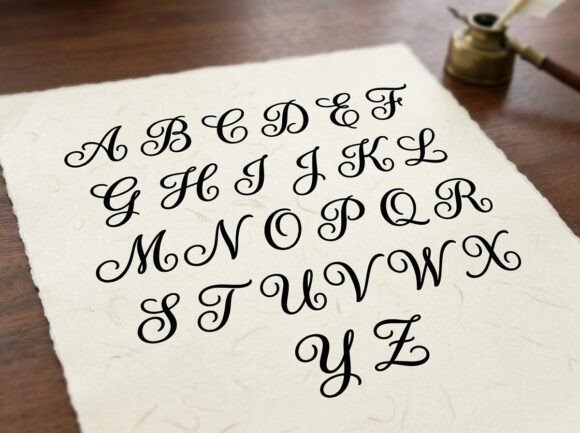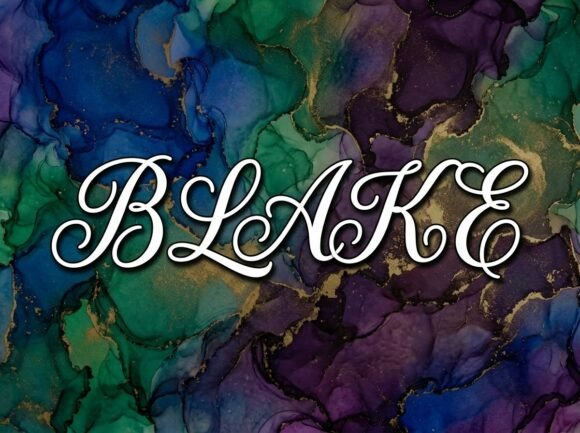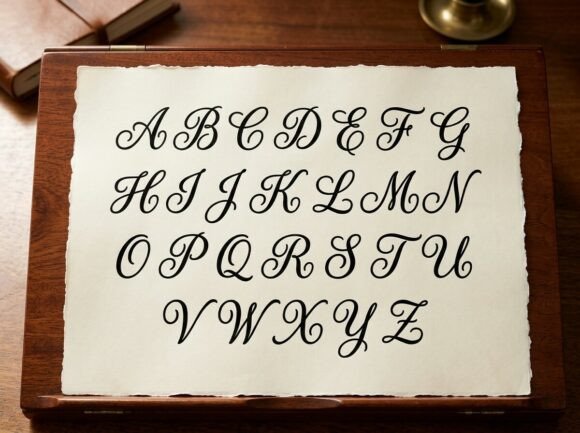
The Ultimate Guide to Blake Font: Elevate Your Designs with a Stunning Display Font
Have you ever been in the middle of a design project, and suddenly, you’re stuck on finding the perfect font? I recall a recent experience where I was working on a branding project for a luxury client, and I just couldn’t find a font that screamed elegance and sophistication. That’s when I stumbled upon the Blake Font, a game-changing decorative display font that instantly elevated my design.
An Honest Review of Blake Font
Let’s dive into the good stuff! Here’s what I love about Blake Font:
• ✨ Unique artistic elements that make your designs stand out
• ✅ Strong visual personality that’s perfect for bold headlines and artistic logos
• 💼 Versatile enough for creative packaging, while maintaining a professional finish
Now, let’s talk about a few quirks:
• ⚠️ Blake Font is an ALL-CAPS display typeface, which means it doesn’t include lowercase letters. But, if you’re looking for a font specifically for high-impact headlines, logos, or decorative initials, this might not be a deal-breaker.
• 🤔 Some users might find the font a bit limited in terms of flexibility, but trust me, its unique features make up for it.
The Story Behind Blake Font
Blake Font was designed with the intention of creating a unique, artistic display font that would make a statement. Inspired by classic typography and modern design trends, the font’s creator aimed to craft a font that would be both visually striking and versatile. While the actual designer remains a mystery, it’s clear that Blake Font was designed with creativity and innovation in mind.
Q: Is Blake Font suitable for body text? A: No, Blake Font is a display font designed specifically for headlines, logos, and decorative initials. It’s not recommended for body text.
Q: Can I modify Blake Font to include lowercase letters? A: Unfortunately, no. Blake Font is an ALL-CAPS display typeface and does not include lowercase letters.